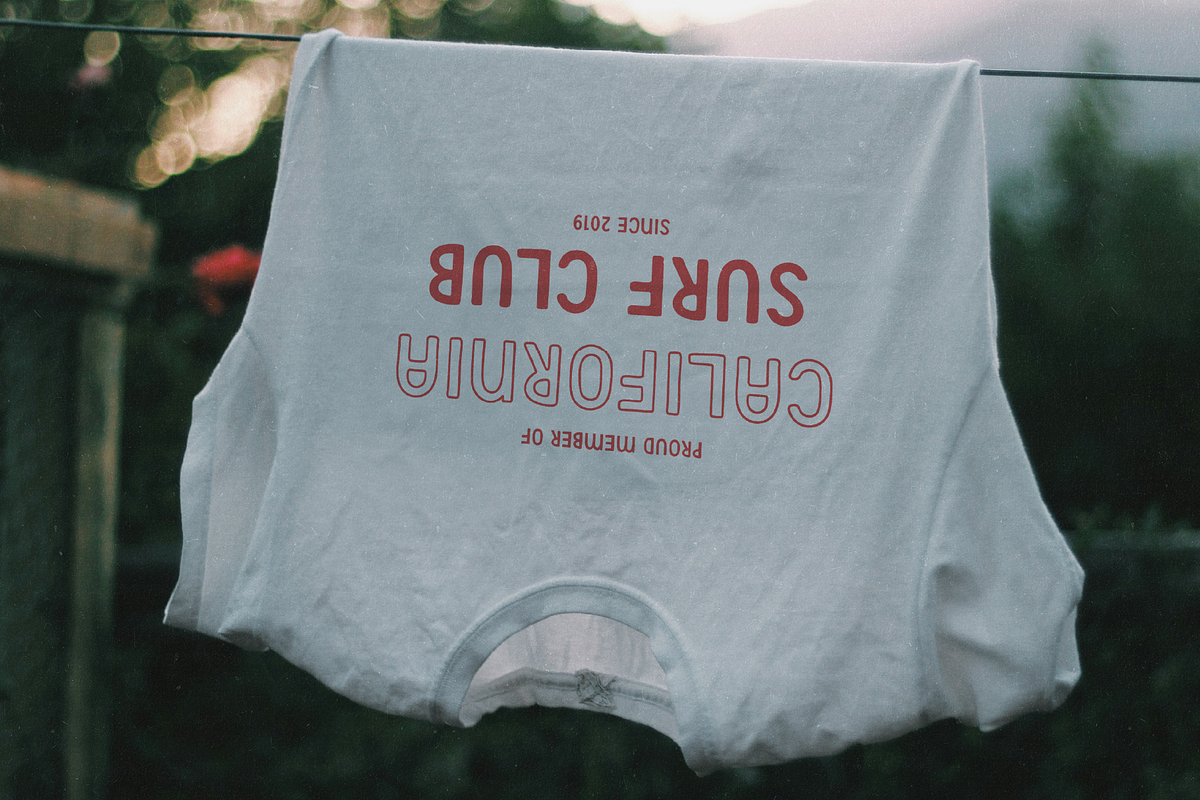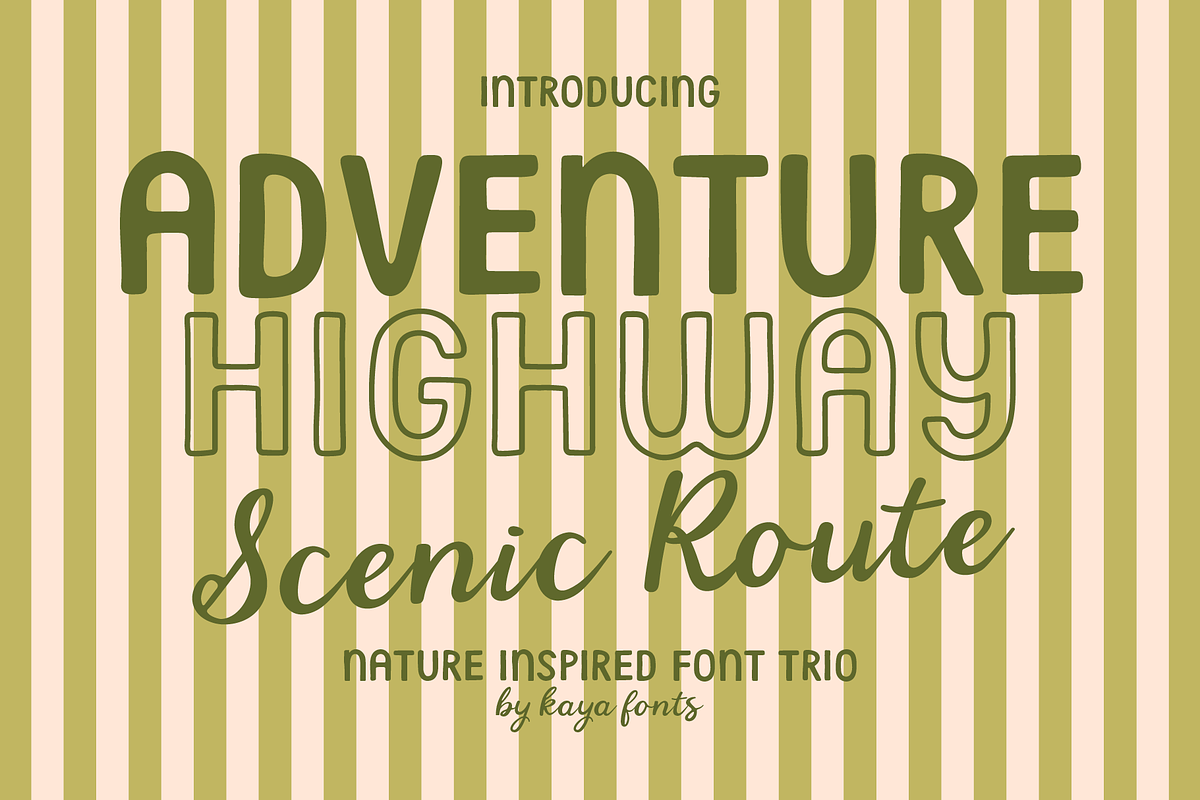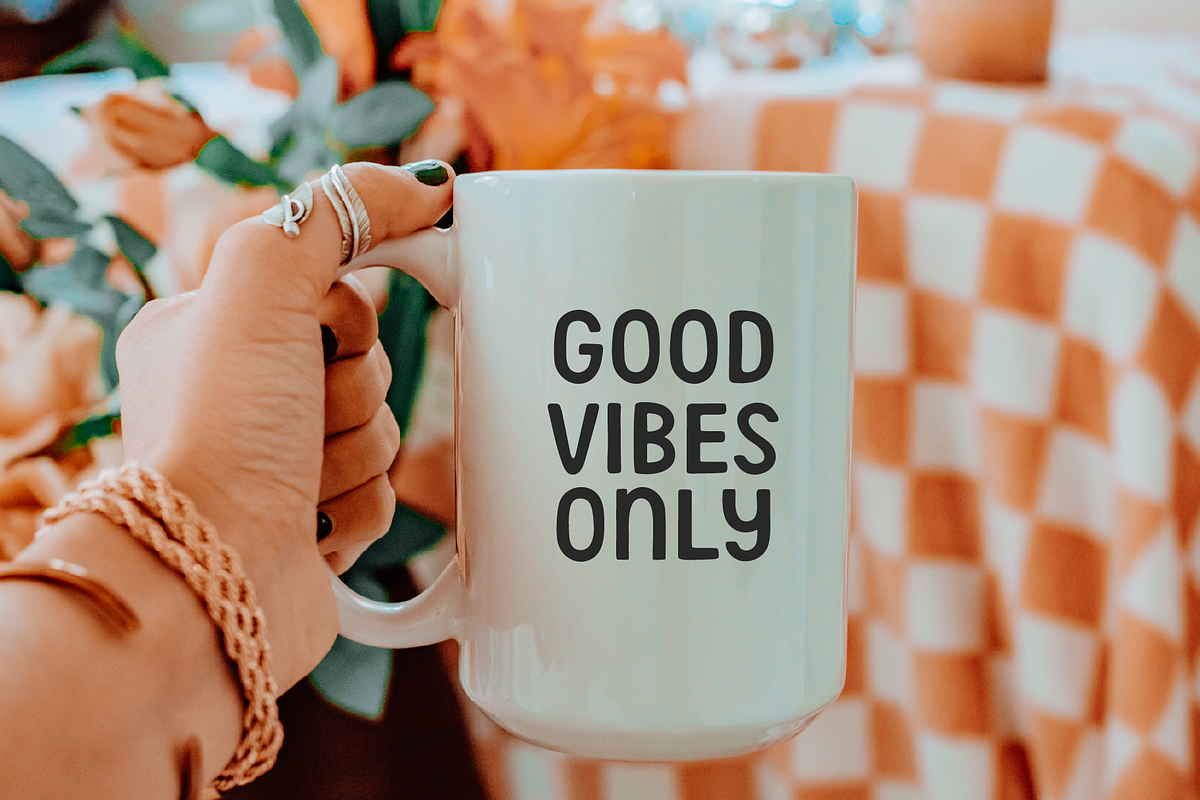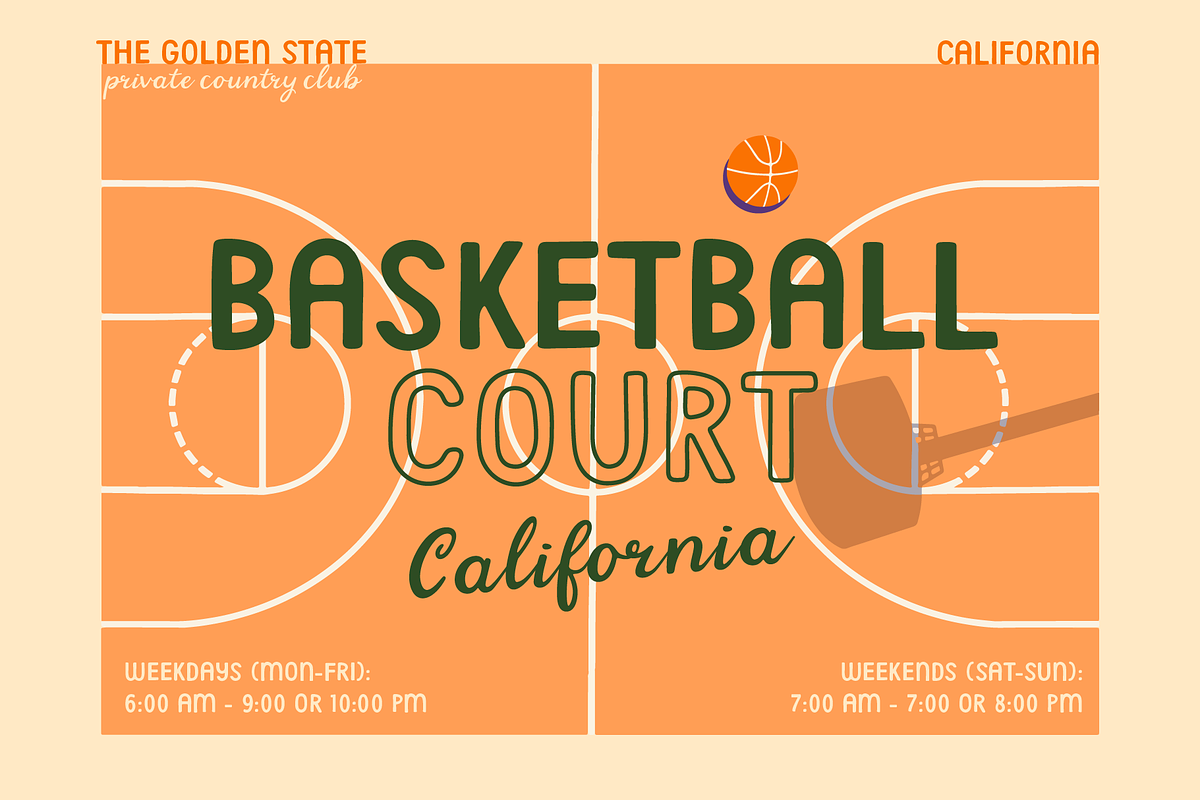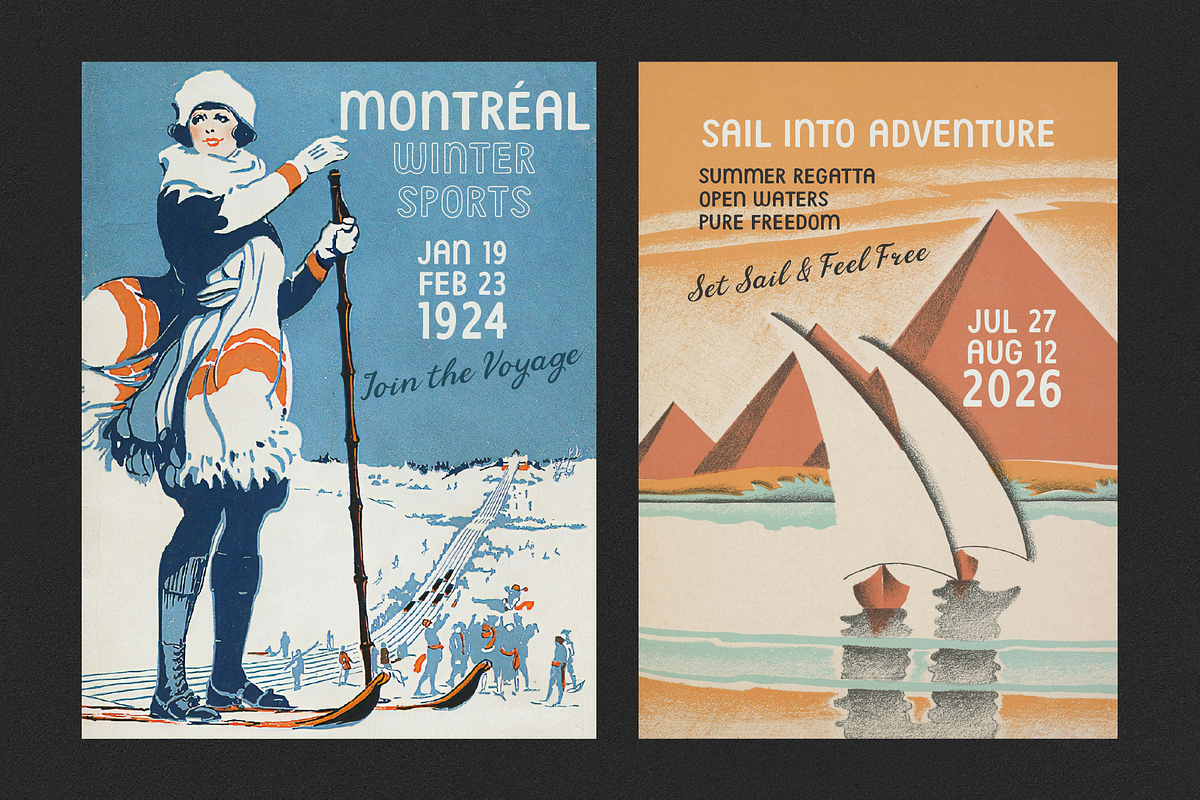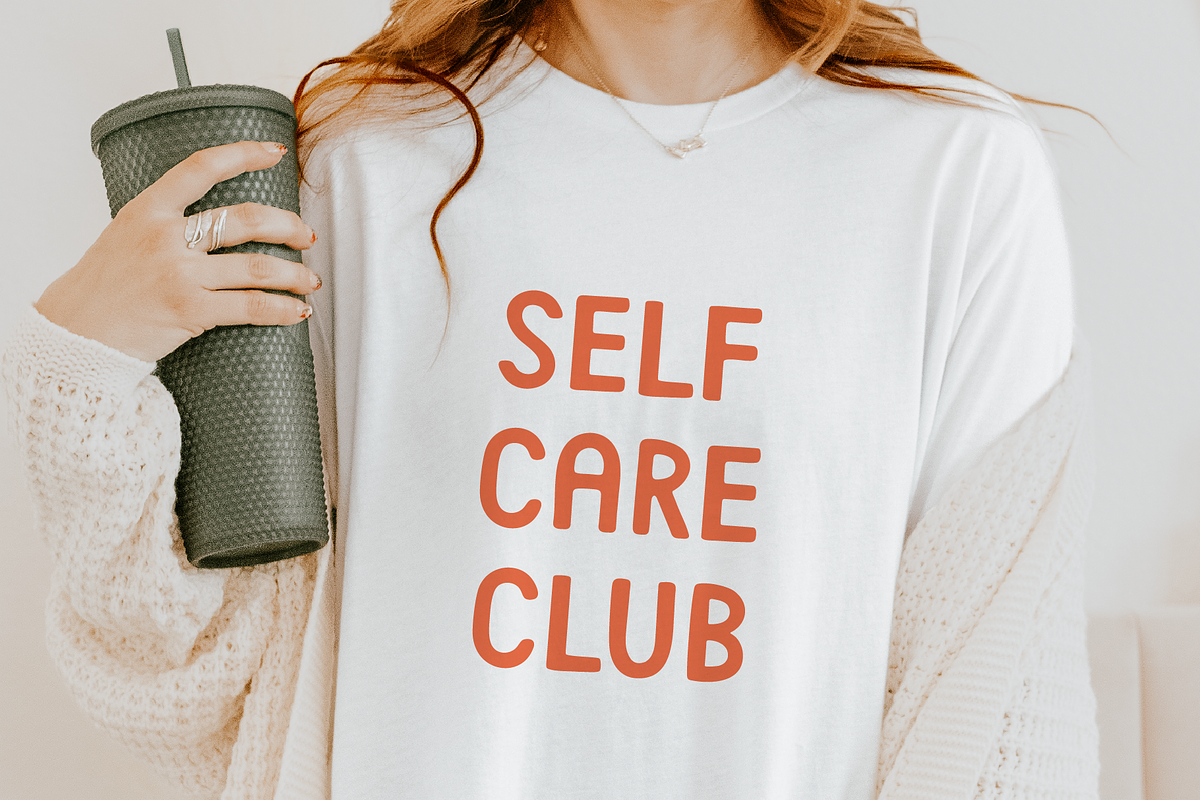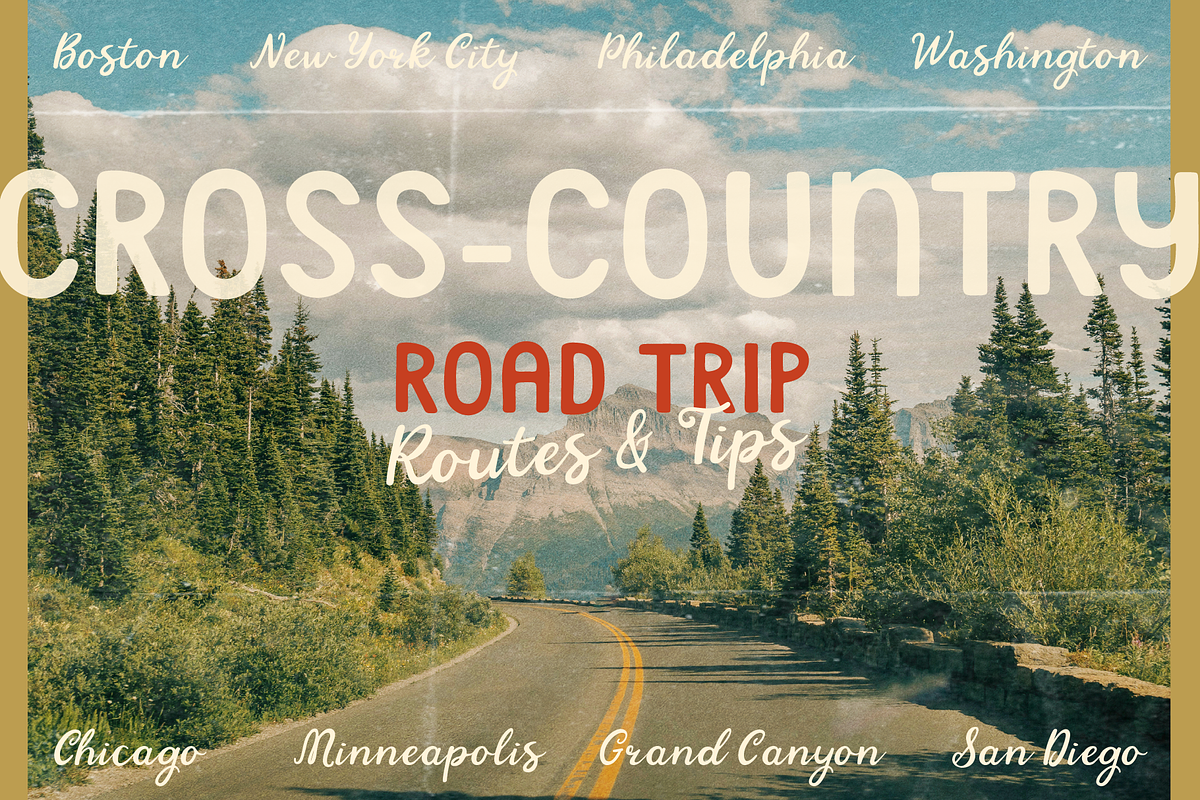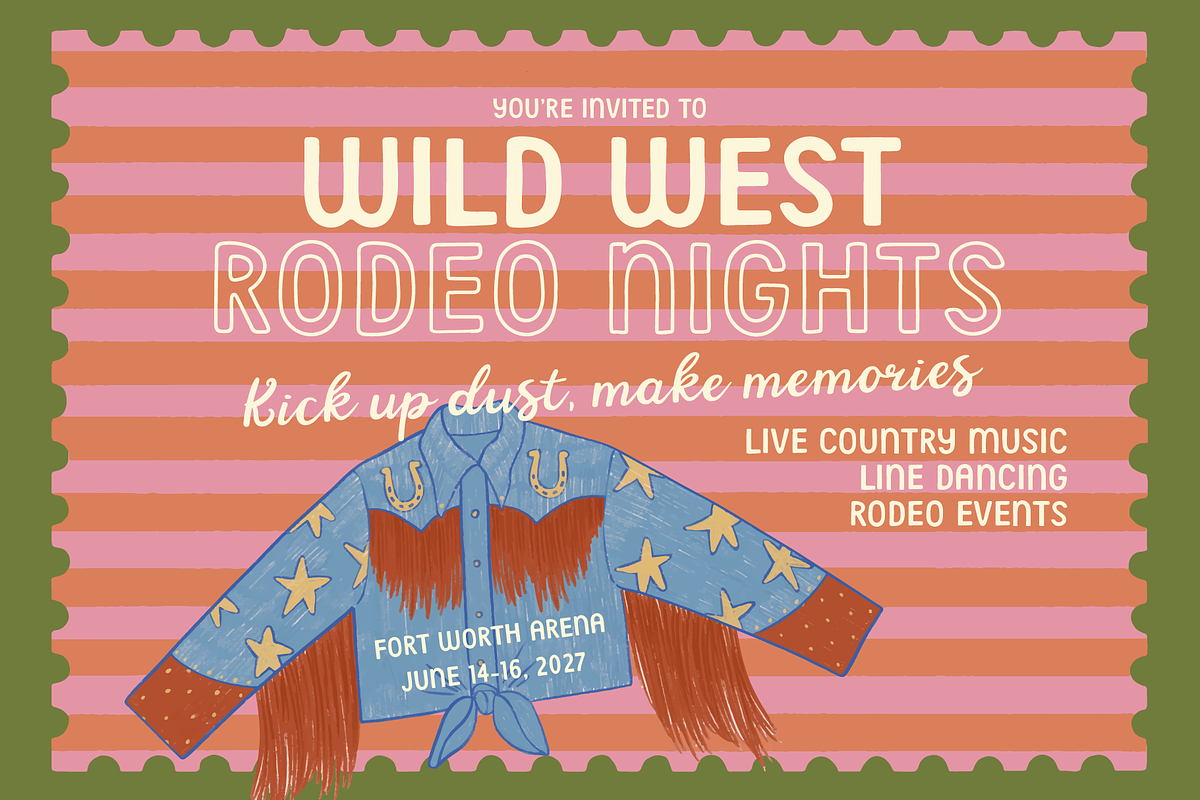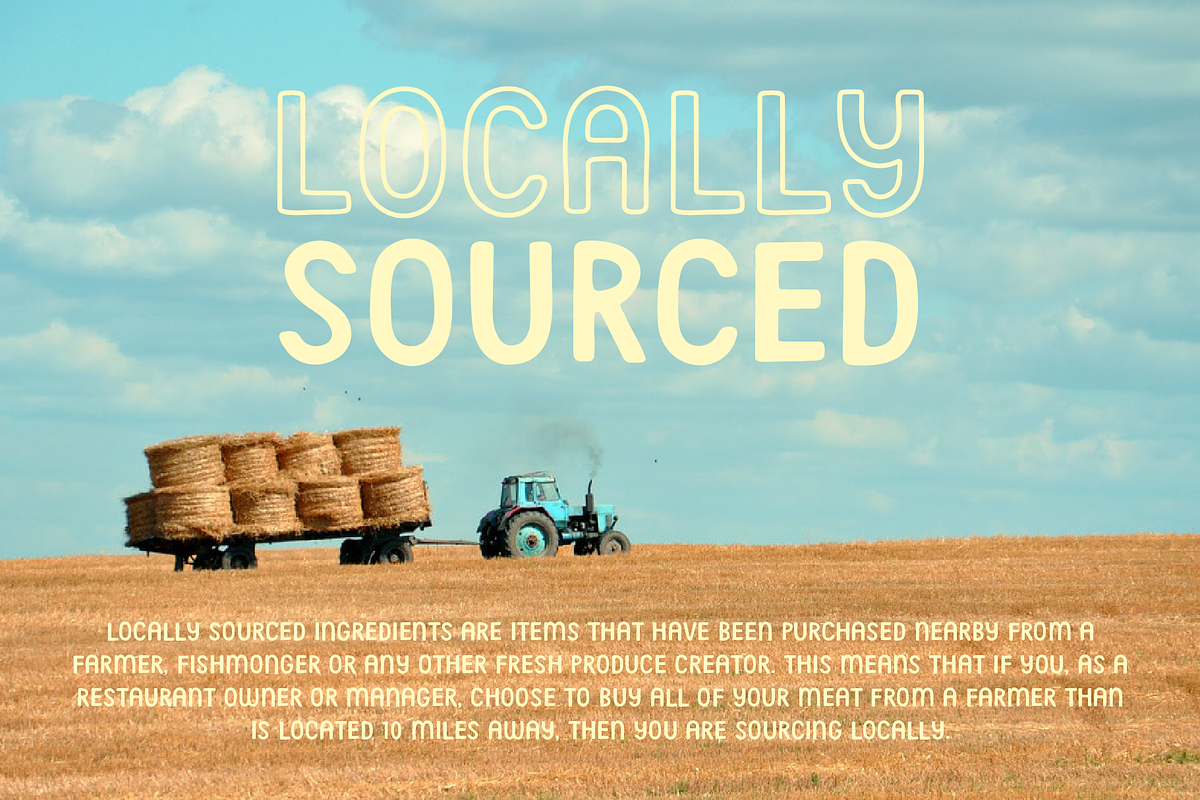
Adventure Highway Retro Nature Font
Adventure Highway is a versatile font collection designed with an expressive, down-to-earth vibe. Inspired by scenic road trips, retro roadside charm, and the great outdoors, this trio of fonts brings warmth and personality to every design.
Whether you're working on logos, packaging, posters, invitations, or brand identity projects, Adventure Highway helps your work stand out with effortless flair. With a combination of bold sans serif, outlined display, and flowing script styles, this set offers flexibility and harmony—perfect for creating layered, eye-catching typography.
Perfect for: • Adventure & travel branding • Western or vintage-themed designs • Apparel & t-shirt graphics • Greeting cards & stationery • Social media posts & Pinterest graphics